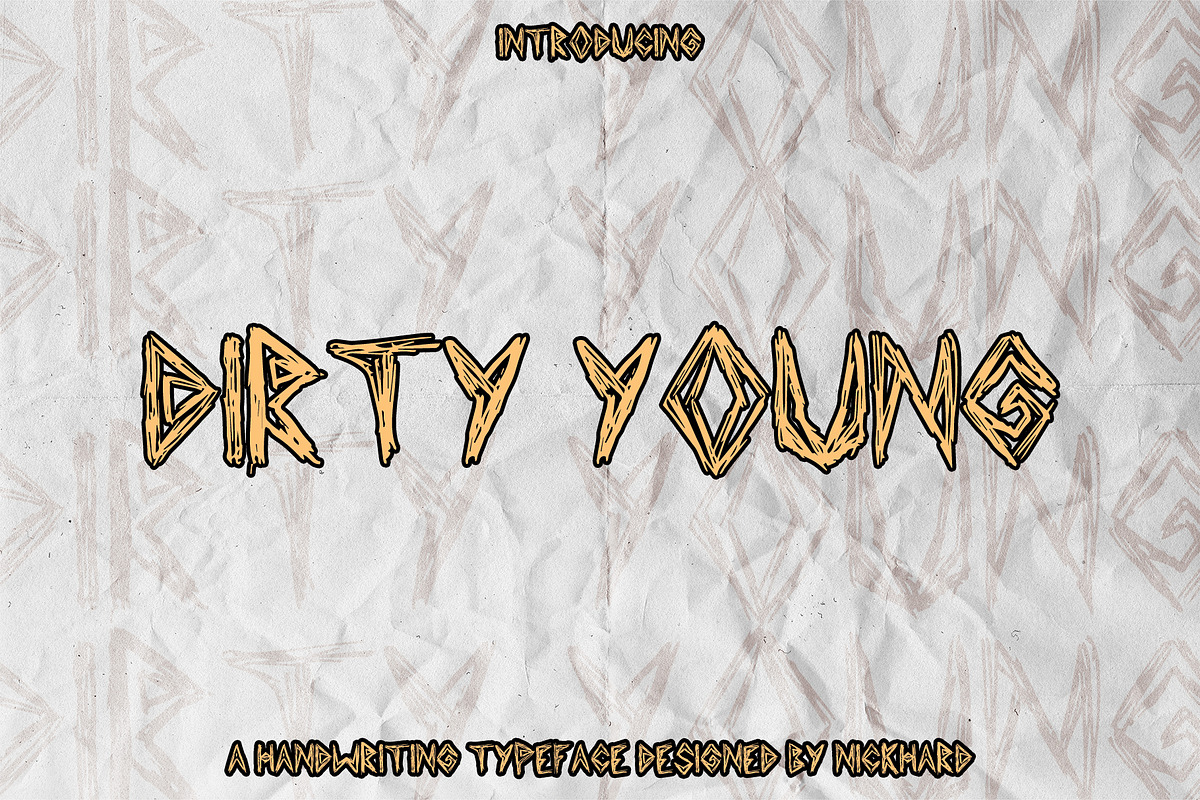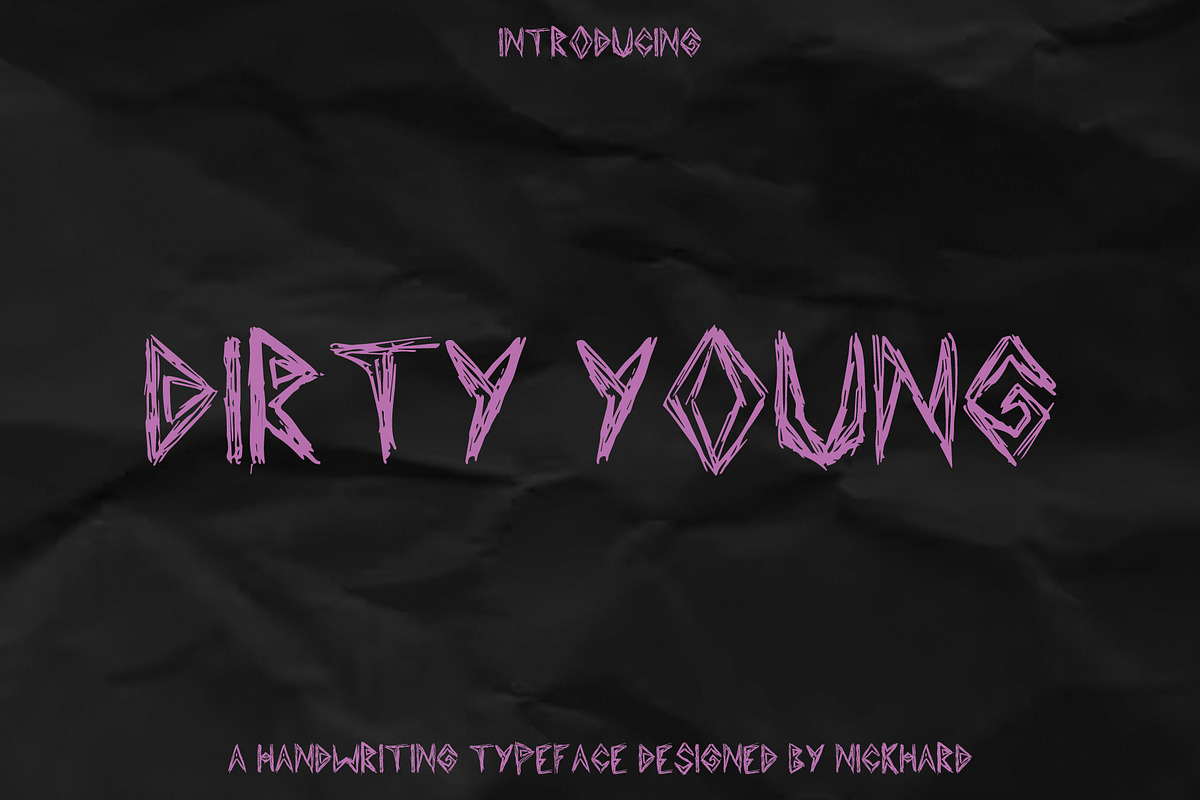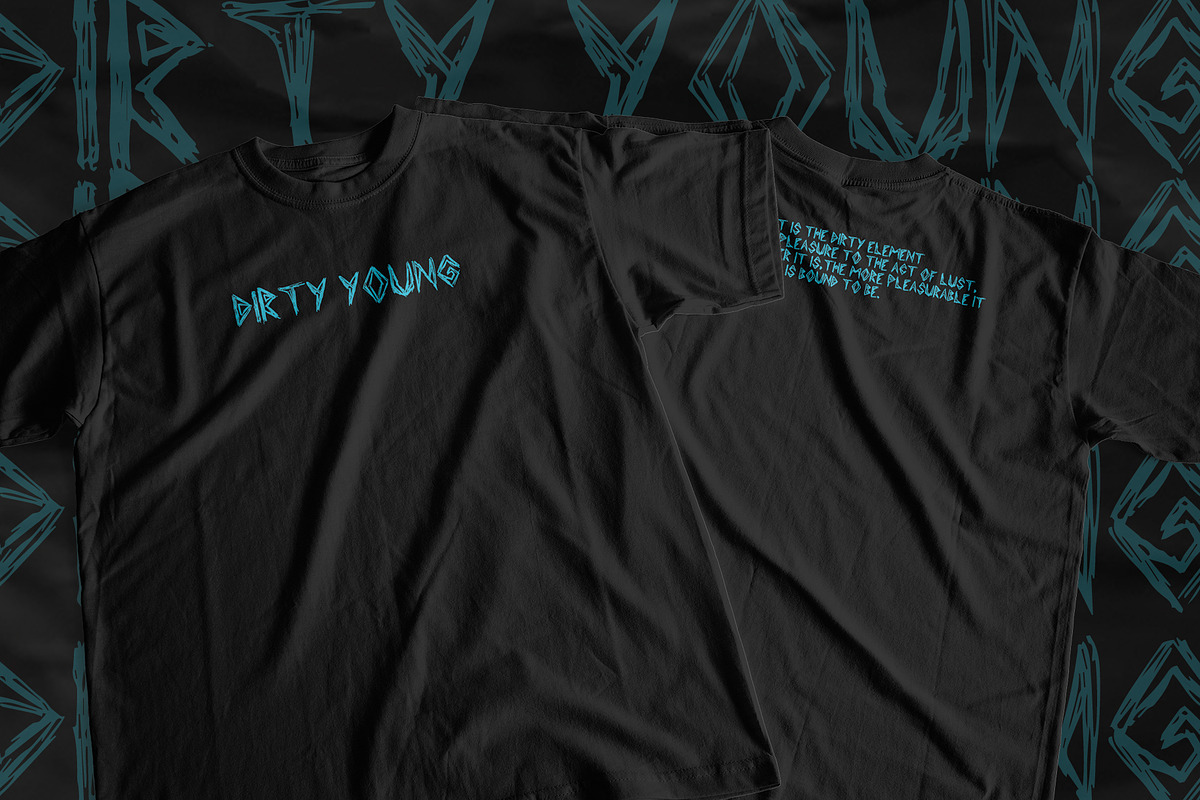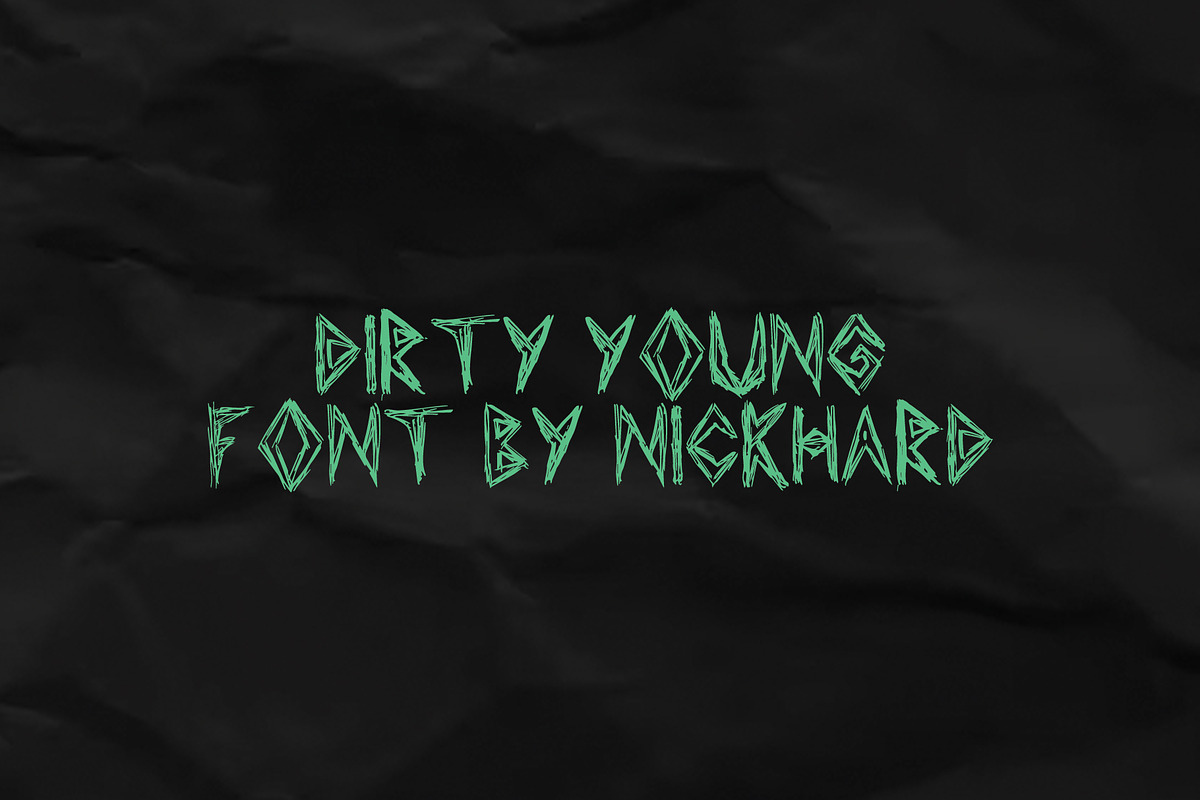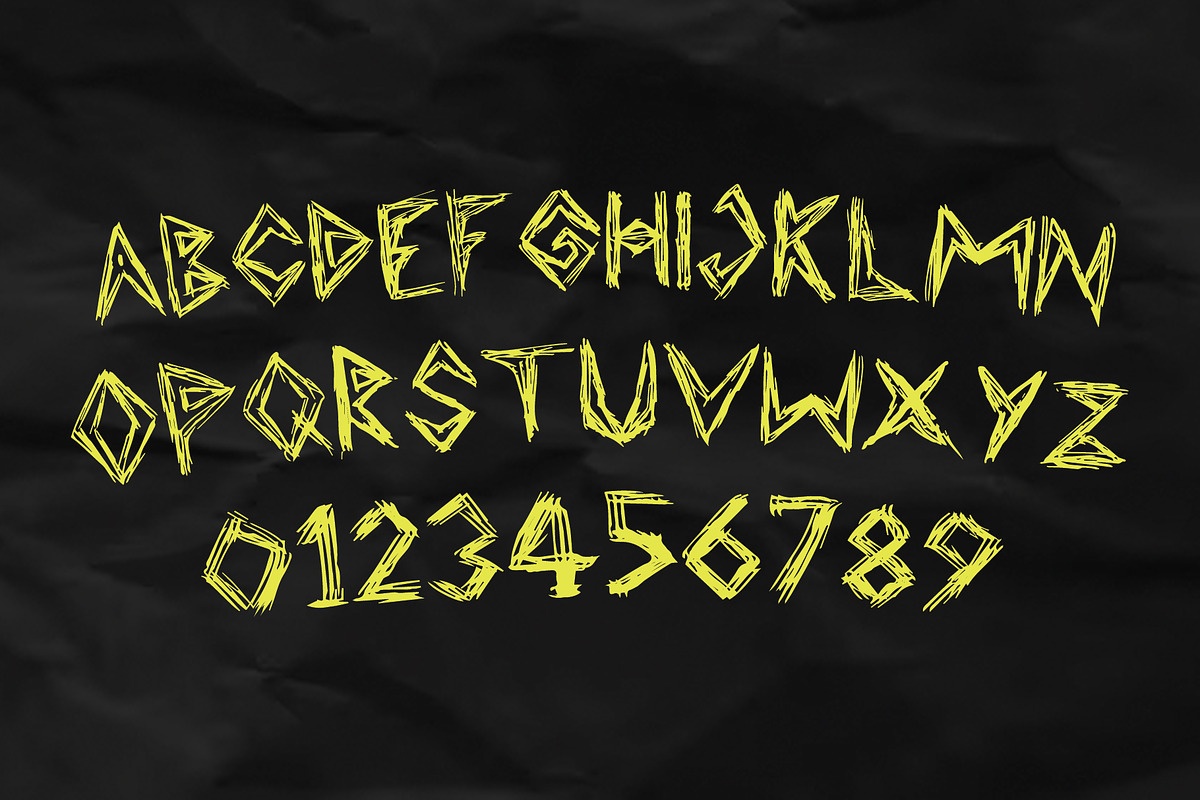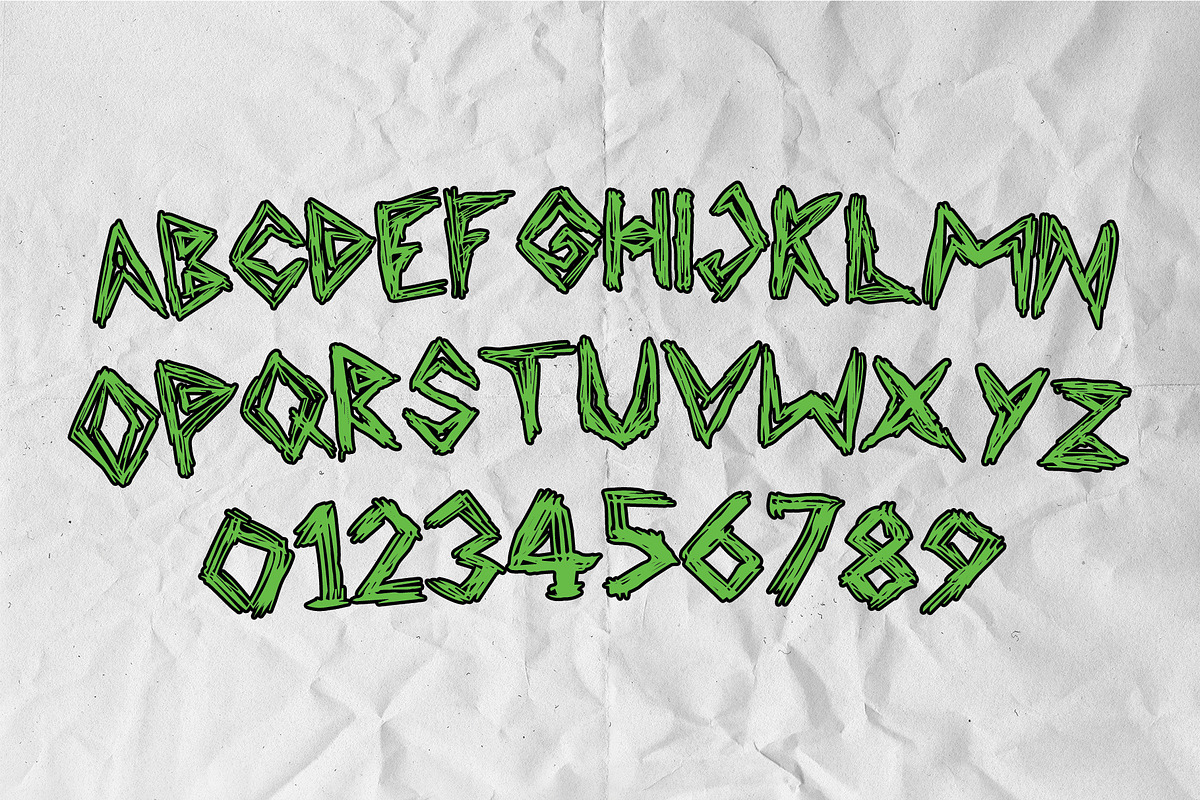
Dirty Young Hand Draw Font
You want to add more rawness to your design. The Dirty Young Font comes in Unbored Scribbles style, making your voice louder. Dirty Young is handwritten font. You can also combine any character with a Dirty Young Font and alternates for an incredible combination!
This font is perfect for your display project for headlines, quotes, editorial design, print posters, Tshirt, and much more.